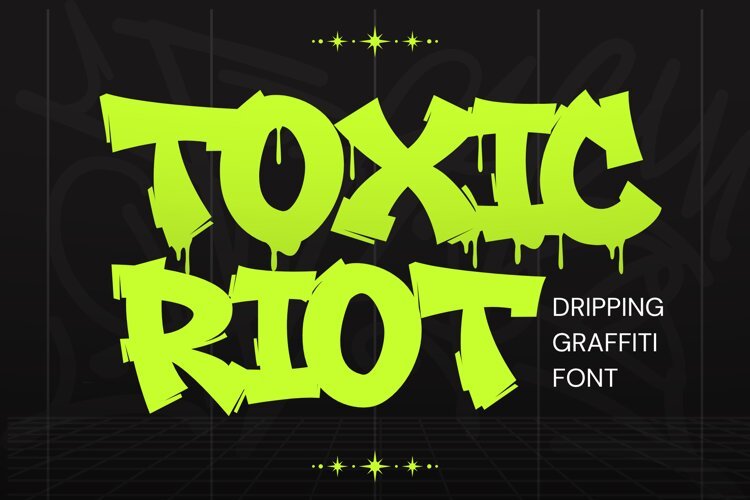
Toxic Riot Dripping Graffiti Font | Streetwear Display
Toxic Riot is a bold and rebellious graffiti display font inspired by street art, dripping paint, underground culture, and raw urban aesthetics. Featuring heavy angular letterforms, rough edges, and distinctive dripping details, this typeface delivers an energetic and aggressive visual style designed to make your typography stand out.
With its chunky graffiti-inspired shapes and liquid drip elements, Toxic Riot is perfect for streetwear branding, T-shirt designs, graffiti artwork, posters, album covers, music graphics, stickers, logos, gaming artwork, merchandise, social media content, and urban-themed campaigns.
The strong silhouette makes Toxic Riot especially effective for large headlines, logos, titles, and other display applications where typography needs to become a major part of the visual composition. Its edgy construction gives designs a rebellious and contemporary street-art feel.
Whether you're creating a streetwear collection, underground music artwork, graffiti poster, gaming title, or bold merchandise graphic, Toxic Riot adds a powerful combination of dripping paint, graffiti attitude, urban energy, and rebellious style to your designs.